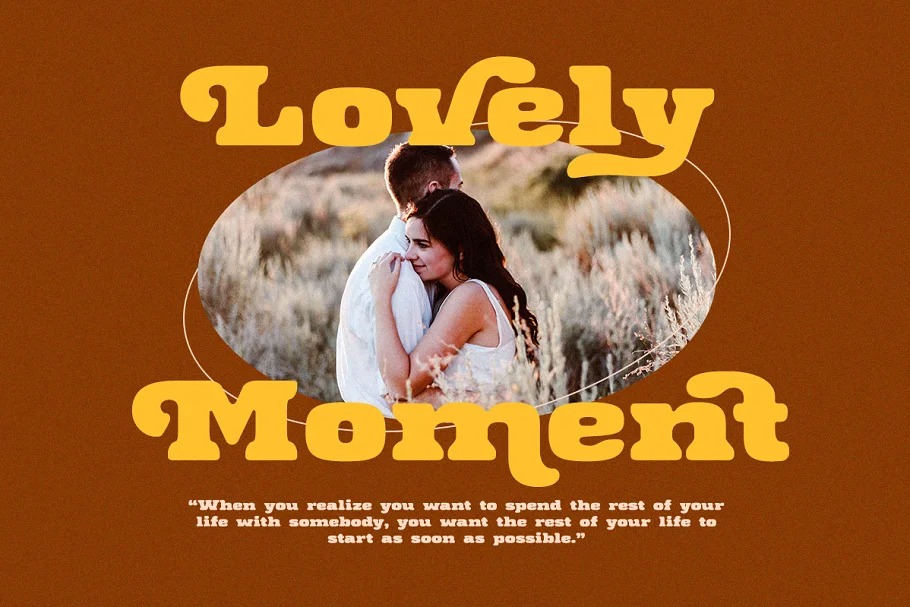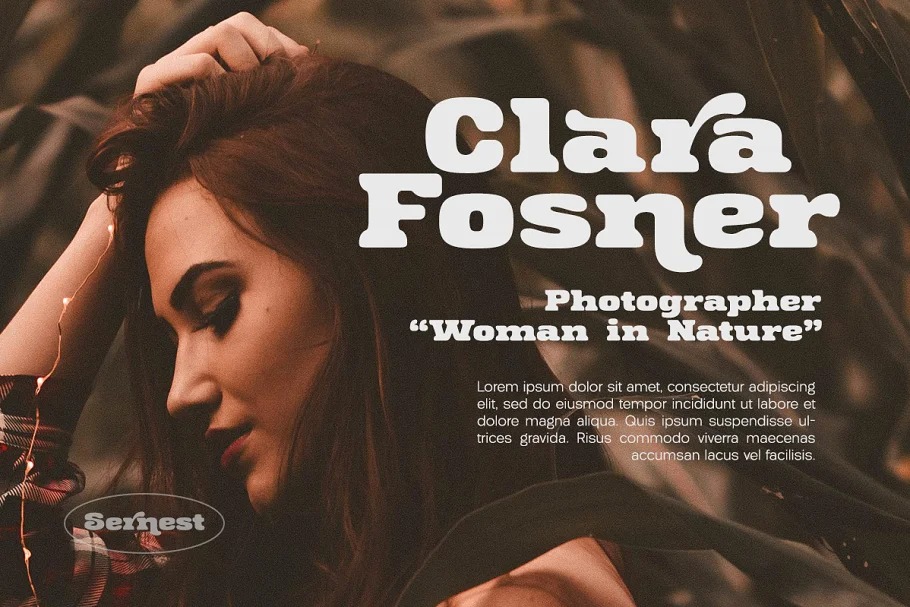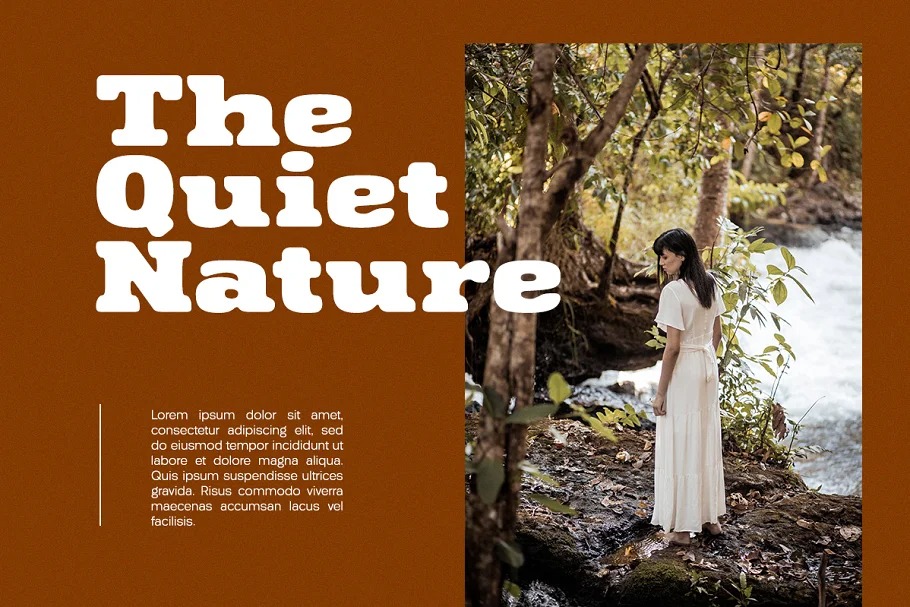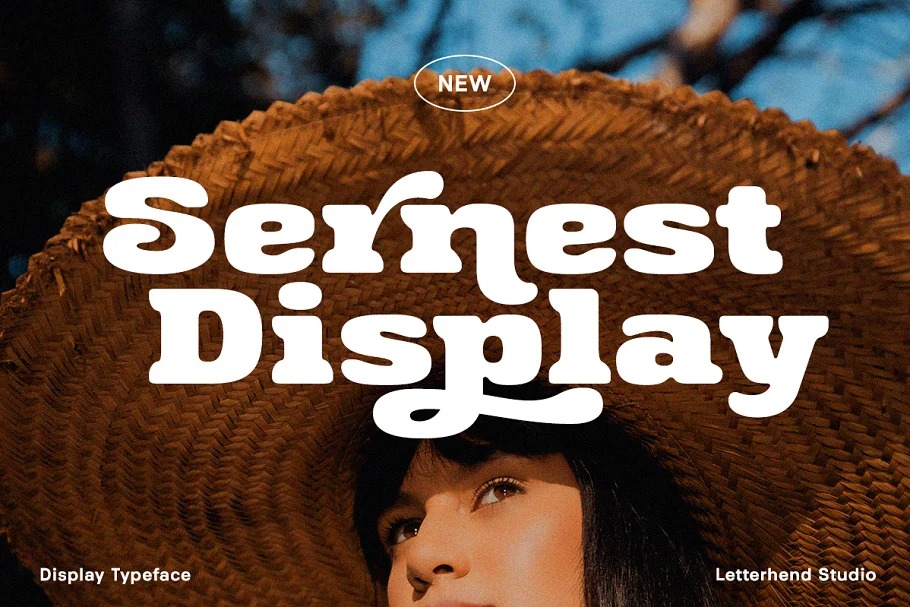
Sernest Font
Sernest Serif Font
This is a stylish blend of classic serif fonts with modern serifs with bold curves giving it a traditional groovy vibe, luxury and versatility. This type of font perfectly made to be applied especially in logo, headline, signage and the other various formal forms such as invitations, labels, logos, magazines, books, greeting / wedding cards, packaging, fashion, make up, stationery, novels, labels or any type of advertising purpose.